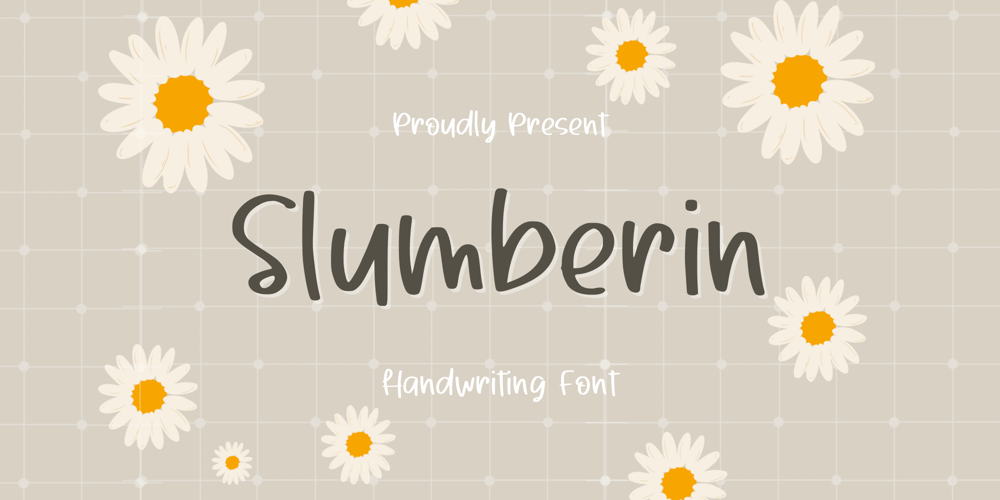
Slumberin Font Family was designed by Nur Aiysah Amalia and published by Aisyah. Slumberin contains 1 styles and family package options. Slumberin Handwriting Font is a beautiful and playful script font that features natural handwriting strokes with a modern twist. It is a versatile font that can be used for a variety of design projects such as greeting cards, logos, invitations, social media posts, and more. The font includes uppercase and lowercase letters, numbers, punctuation, and special characters. Its unique style adds a touch of whimsy and charm to any design.